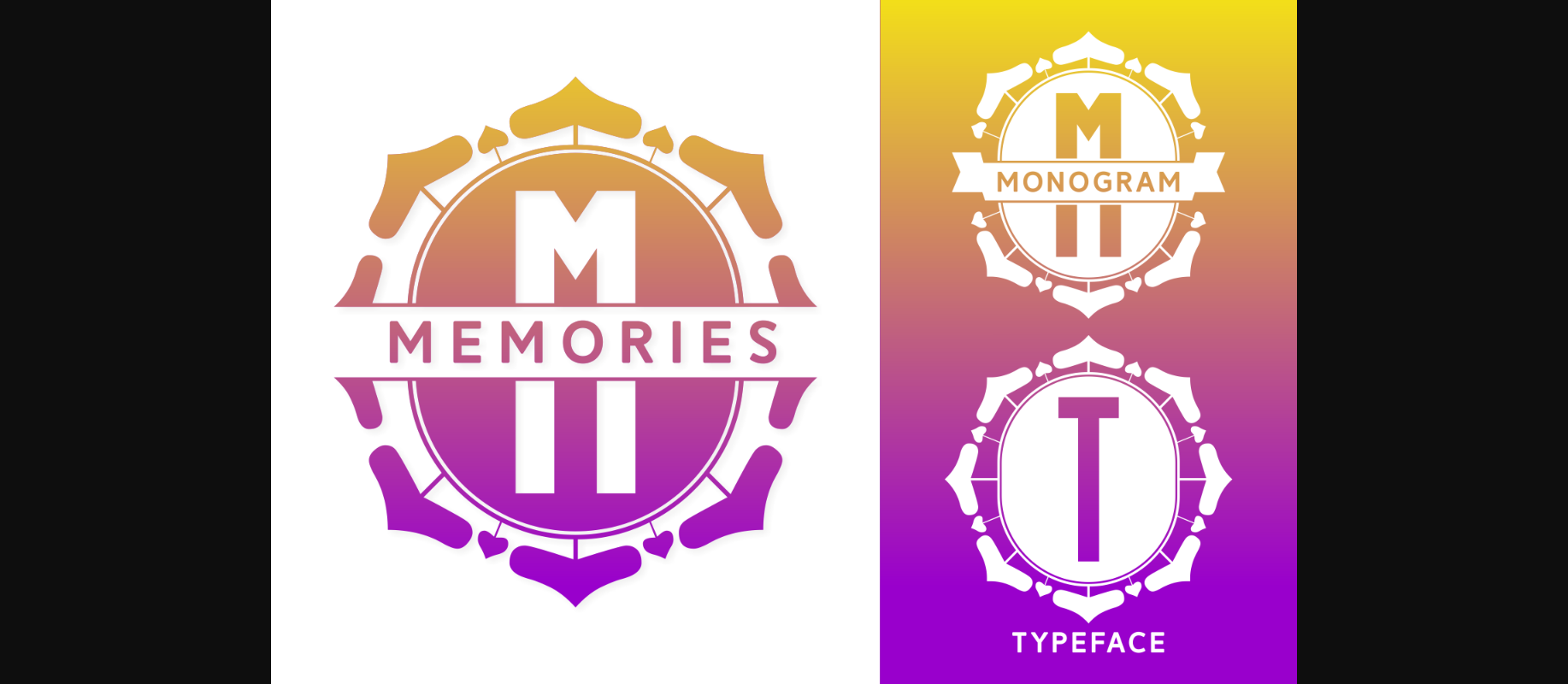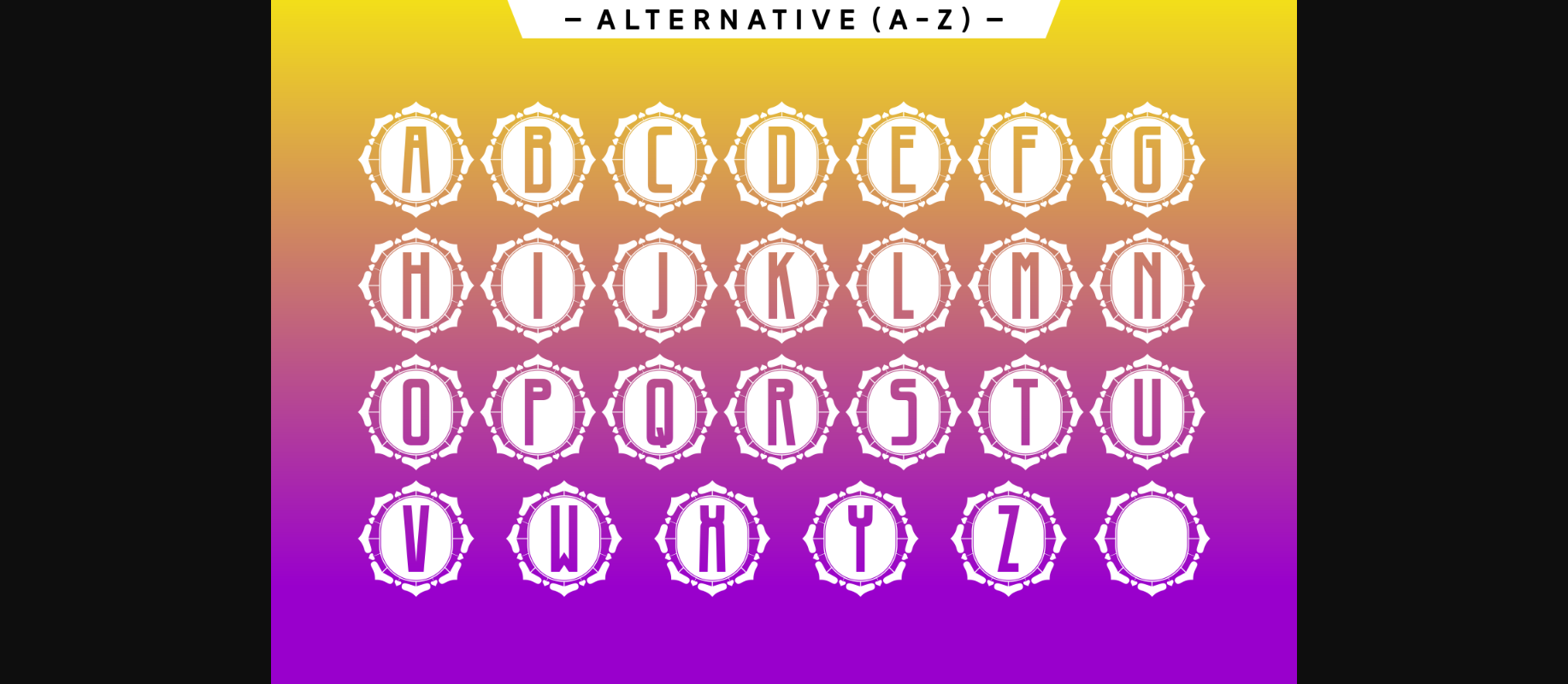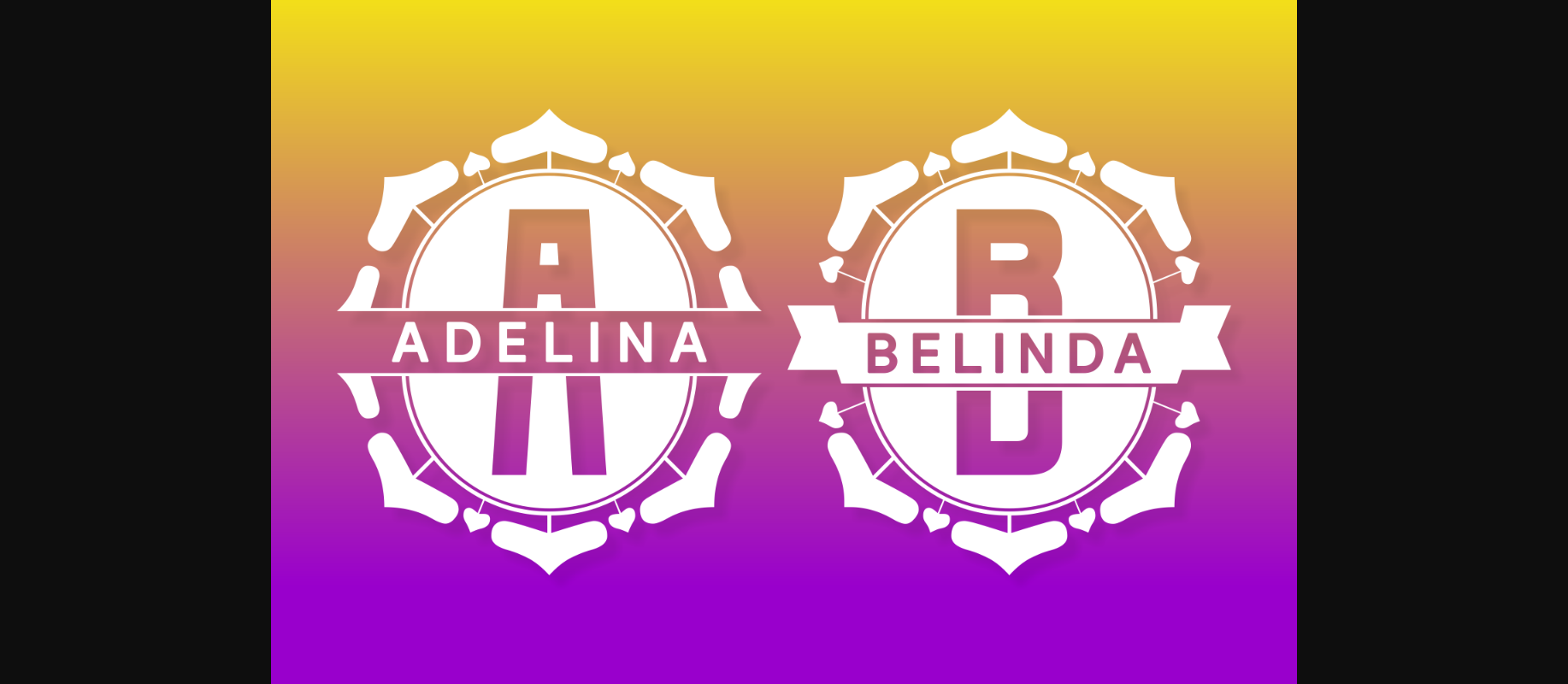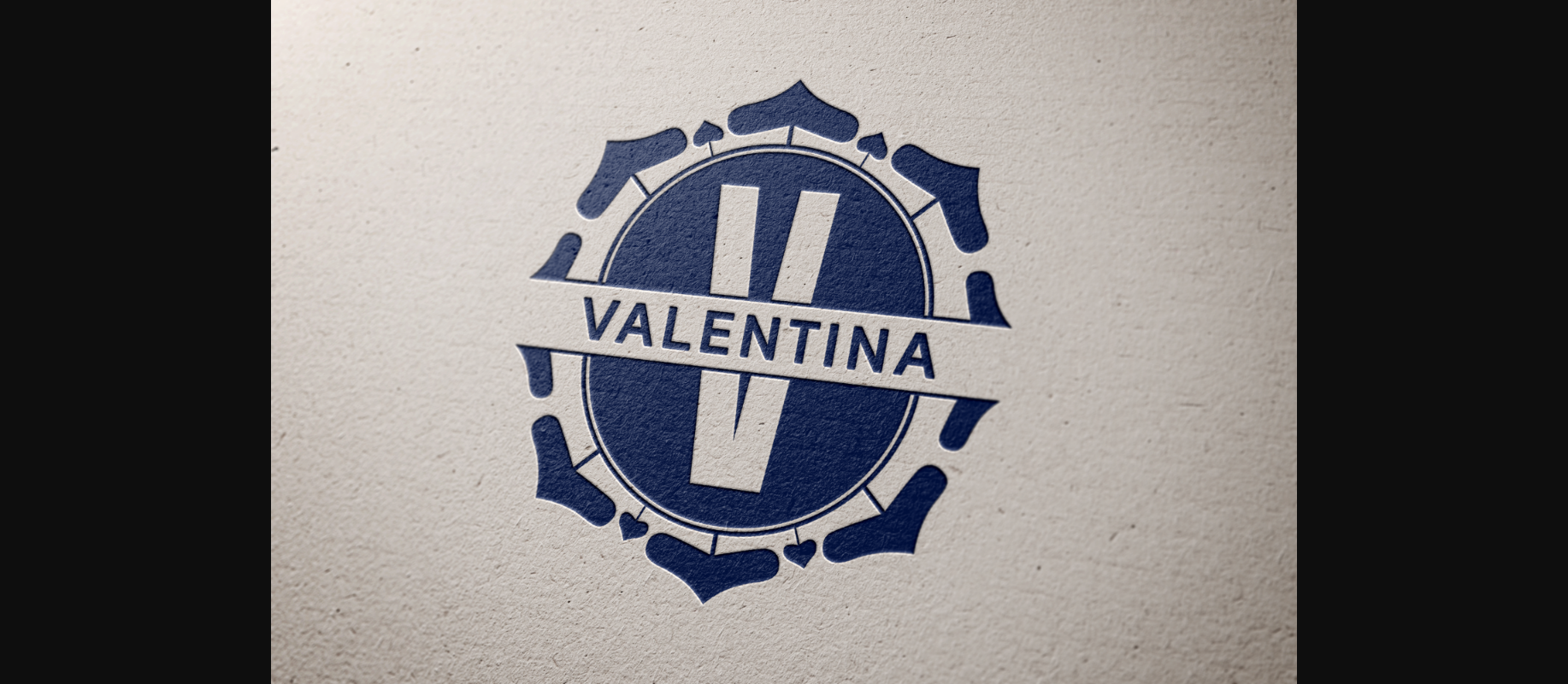
About Memories Monogram Font
Make a timeless statement with the exquisite monogram font. Perfect for creating elegant logos, invitations, and any project that requires a touch of sophistication. Memories Monogram features intricate interlocking letters that are both visually appealing and easy to read. Its unique style makes it a versatile choice for a wide range of design projects. It is also PUA encoded which means you can access all of the glyphs and swashes with ease!